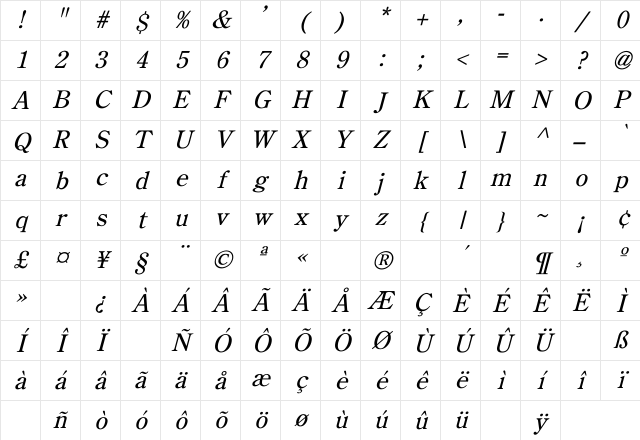
CenturyOldStyle Italic Free Font
CenturyOldStyle Italic
CenturyOldStyle Family
Complete CenturyOldStyle Italic glyph index. Displaying only characters natively supported by CenturyOldStyle Italic font.
Design Context for CenturyOldStyle
CenturyOldStyle carries the refined structure of traditional serif typography, with bracketed terminals and considered proportions that communicate credibility and craft. The slanted form adds forward momentum and visual energy.